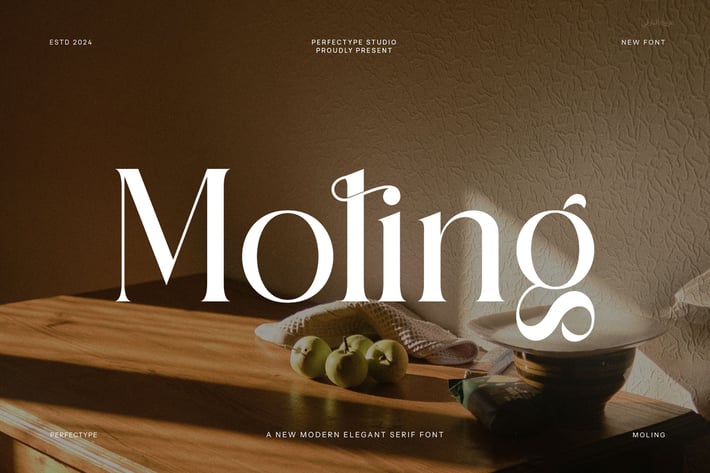
Moling Modern Serif Font
Moling is a modern serif font that blends classic elegance with a fresh and clean style. First, its smooth curves and sharp serifs give it a timeless look. Because of this, it works well for projects that want to combine tradition with modern design.
Moreover, Moling suits a wide range of uses. You can use it for logos, headlines, invitations, magazines, and websites. In addition, its clear letter shapes keep text readable at both large and small sizes. So, designers can confidently apply it across print and digital media.
Furthermore, Moling offers great balance. Its serif details add character without making the font look busy. The clean lines create harmony and make the text feel inviting. This means it fits perfectly for fashion brands, luxury products, editorial designs, and elegant branding. Besides, Moling pairs well with sans serif fonts, which lets you mix styles while keeping your layout neat.
Another advantage is the font’s versatility. It stands out in both titles and body text. As a result, your designs gain a professional, stylish look without sacrificing readability. In fact, Moling’s combination of tradition and modernity helps your message connect with diverse audiences.
To sum up, Moling features:
- Modern serif style with classic elegance
- Smooth curves and sharp serifs
- Clear, readable letters at all sizes
- Versatile for print, web, and branding
- Ideal for fashion, editorial, and luxury
- Works well with sans serif fonts
- Balanced and inviting design
Overall, Moling offers a refined serif font that adds style and clarity to your projects. This way, you can create beautiful designs that feel both timeless and fresh.